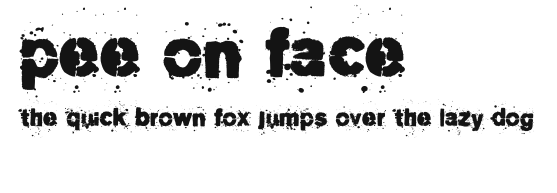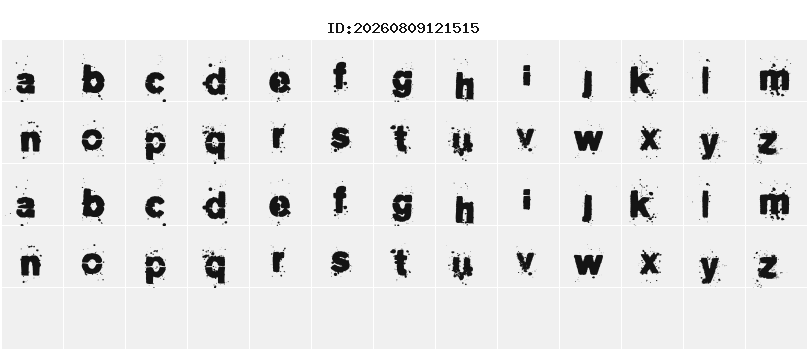
• Font Name: Pee_on_face
• Designer: thibault dietlin
• Description: I_Pee_on_ya_face
About Pee_on_face.ttf
Pee_on_face.ttf is a modern, elegant sans-serif font designed for ultimate readability and visual harmony. Perfect for branding, headlines, web design, and print materials.